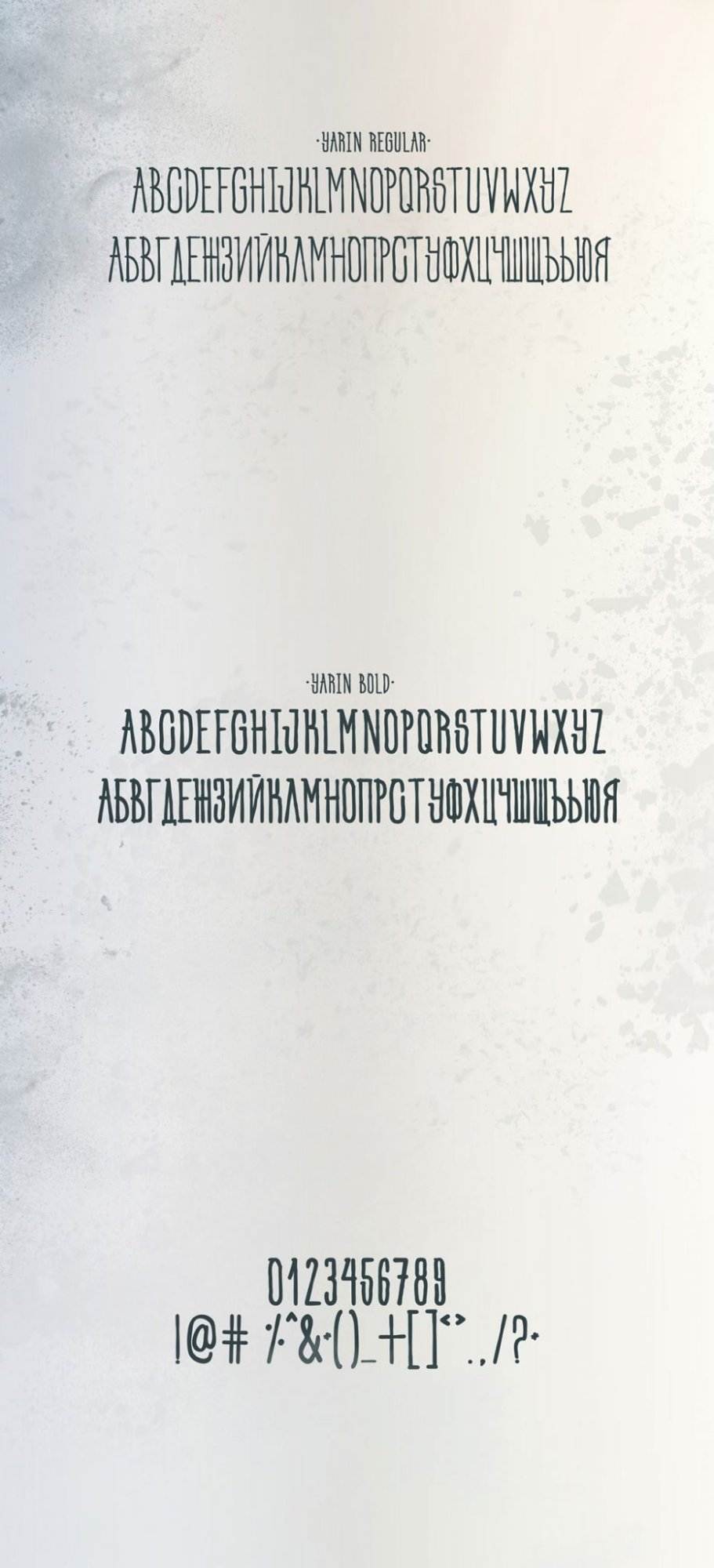
Yarin Font – Free Font Of The Day #198
Yarin Font
Free handwriting font providing uppercase characters hat comes in two weights (regular & bold). Designed by Mario Pan deliver.